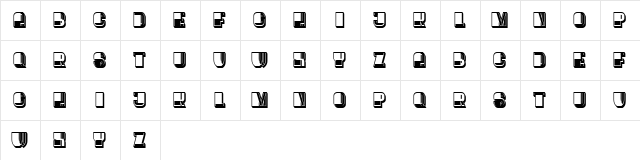
Oysters Abstract Regular
Design Context for Oysters Abstract Typeface
Oysters Abstract is a composed and adaptable typeface that performs quietly and consistently across a wide range of design contexts.